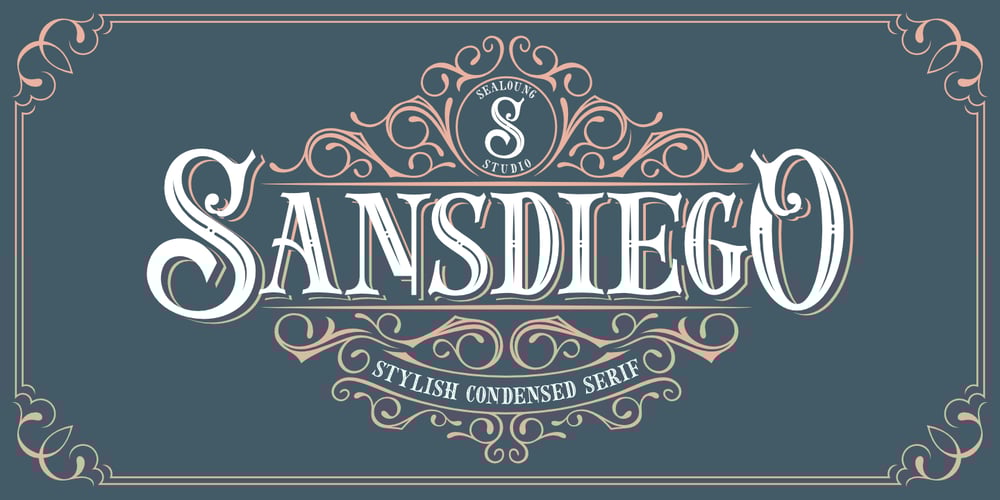
Sansdiego Font Family was designed by Saiful Anwar and published by Sealoung. Sansdiego contains 5 styles and family package options. Introducing our new exploratory Sansdiego, this typeface inspired by European empire-era forms of writing. Sansdiego typeface is perfect for classic Victorian themed designs, beer packaging, whiskey, barbershop, pomade, tattoo studio logos and so on. This font comes with additional effects: Normal – style – double – Shadow, packaged as a layered font. Sansdiego is an all caps font, carefully crafted with a great ornamental taste.